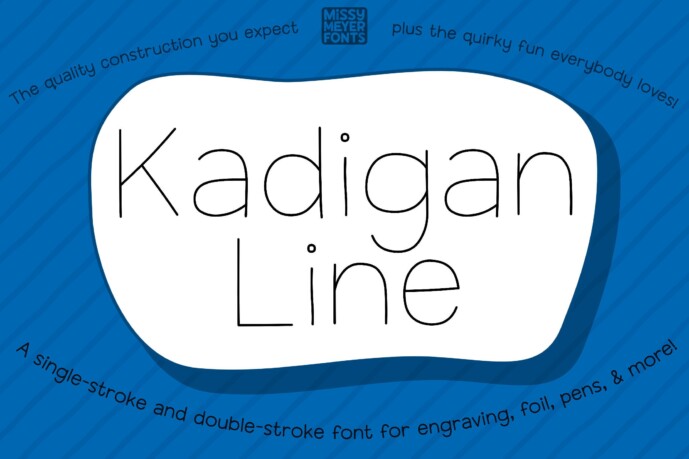
Kadigan Line is a single-line font based on the original Kadigan outline typeface. With its fun, hand-crafted sans-serif style, it brings a touch of personality to a wide range of creative projects—from greeting cards and handmade gifts to engraved jewelry, cutting boards, and more.
The font is provided in both single-stroke and double-stroke versions to ensure compatibility across various software platforms and machine types. Different programs may handle these formats differently, so choose the one that best suits your workflow.